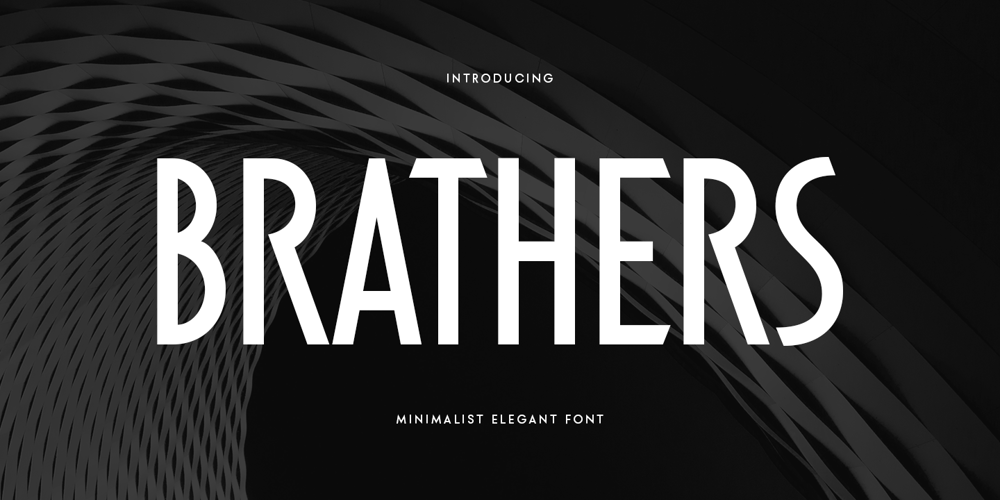
Brathers SS Font Family was designed by Zamroni Hamzah and published by Sensatype Studio. Brathers SS contains 2 styles and family package options. BRATHERS is a Minimalist Elegant Sans Serif Font.An extraordinary style with minimalist and elegant in sans serif, we analyze what any designer or brand owner needs to make their brand stand out. As our focus that analyzes any typeface that helps to leverage any logo design to look more modern and unique. We prepared this font with any unique characters to help you create unlimited variations for your creative needs.BRATHERS Minimalist Elegant Sans Serif Font ready with: Regular & Bold Ready Better style of characters with a minimalist elegant curve Preview as an inspiration that you can do with BRATHER font All Uppercase characters Wish you enjoy our font. ๐